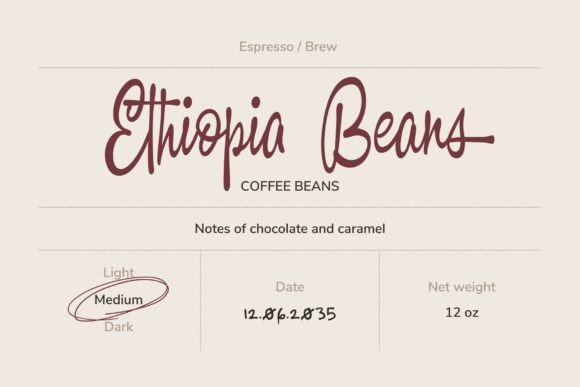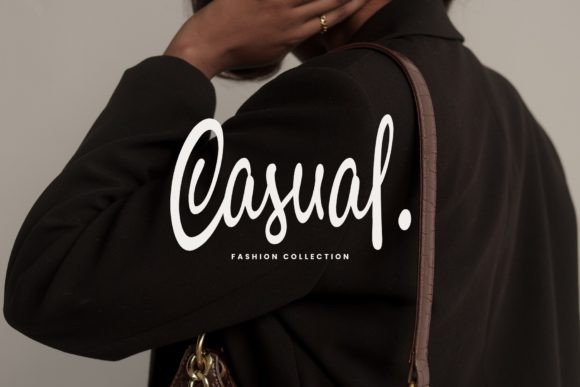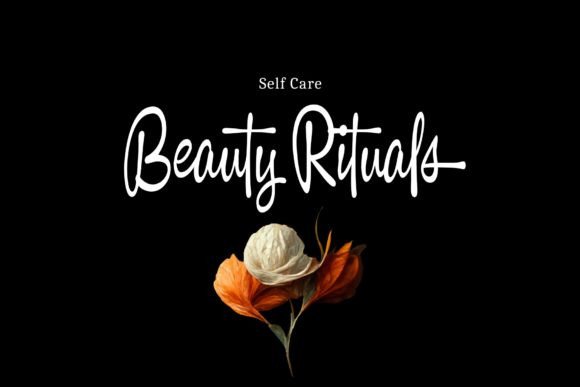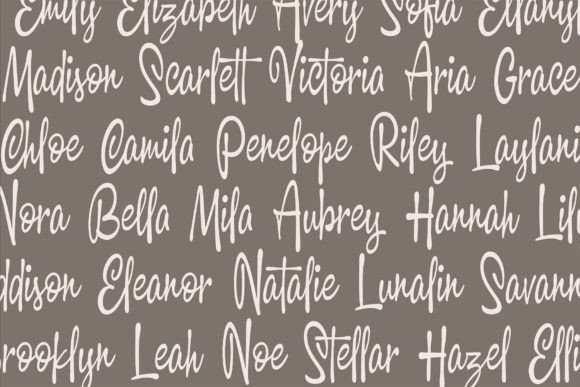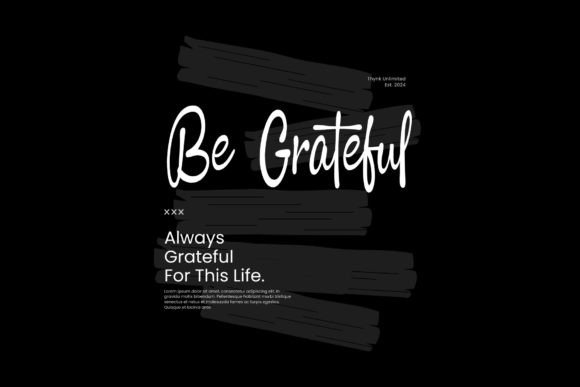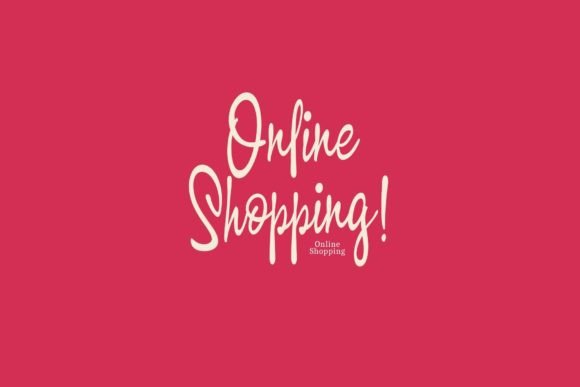
Unveiling the Enigmatic Copenhagen Font: A Contemporary Casual Script with a Touch of Mystery
In the realm of typography, few fonts manage to strike a balance between modern design and an air of mystery. Enigmatic Copenhagen, a contemporary casual script font, achieves this delicate balance with grace. Its unique blend of flowing, handcrafted letterforms and sophisticated design elements makes it an ideal choice for designers and crafters looking to add a touch of enigma to their projects.
The Design Philosophy Behind Enigmatic Copenhagen
Enigmatic Copenhagen is not just a font; it’s a design statement. It seamlessly blends modern aesthetics with a casual, refined style that is both captivating and versatile. The font’s design philosophy revolves around creating a sense of mystery and sophistication, making it perfect for projects that require a unique typographic approach.
The handcrafted letterforms of Enigmatic Copenhagen exude a sense of personal touch, as if each letter was carefully crafted by hand. This attention to detail is evident in the font’s flowing lines and curves, which give it a dynamic and expressive feel.
Key Features of Enigmatic Copenhagen
So, what sets Enigmatic Copenhagen apart from other script fonts? Here are some of its key features:
- OpenType Features: Enigmatic Copenhagen incorporates OpenType features, which enhance its versatility and allow for a more personalized typographic experience.
- Dynamic Ligatures: The font offers dynamic ligatures, which create a flowing, connected text that is both visually appealing and easy to read.
- Alternate Characters: Enigmatic Copenhagen includes alternate characters, allowing users to create distinctive designs with a touch of enigma and sophistication.
Applications of Enigmatic Copenhagen
Enigmatic Copenhagen is a versatile font that can be used in a wide range of applications, including:
- Branding: The font’s unique blend of modern design and mystery makes it perfect for branding projects that require a distinctive typographic approach.
- Invitations: Enigmatic Copenhagen’s elegant and refined style makes it ideal for invitations, such as wedding invitations, birthday invitations, and other special occasions.
- Creative Projects: The font’s versatility and expressiveness make it suitable for a variety of creative projects, including posters, flyers, and social media graphics.
Why Choose Enigmatic Copenhagen?
With so many script fonts available, why choose Enigmatic Copenhagen? Here are a few reasons:
- Unique Design: Enigmatic Copenhagen’s unique blend of modern design and mystery sets it apart from other script fonts.
- Versatility: The font’s versatility and expressiveness make it suitable for a wide range of applications.
Enigmatic Copenhagen is a captivating and versatile script font that adds a unique flair to text. Its blend of modern design and mystery makes it perfect for designers and crafters looking to create distinctive designs with a touch of enigma and sophistication. With its OpenType features, dynamic ligatures, and alternate characters, Enigmatic Copenhagen offers a personalized and expressive typographic experience that is sure to elevate any project.
Whether you’re a designer, crafter, or simply someone looking to add a touch of mystery to your projects, Enigmatic Copenhagen is an excellent choice. Its ease of use, versatility, and unique design make it an invaluable addition to any design toolkit.